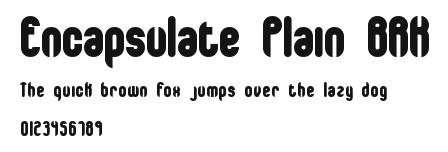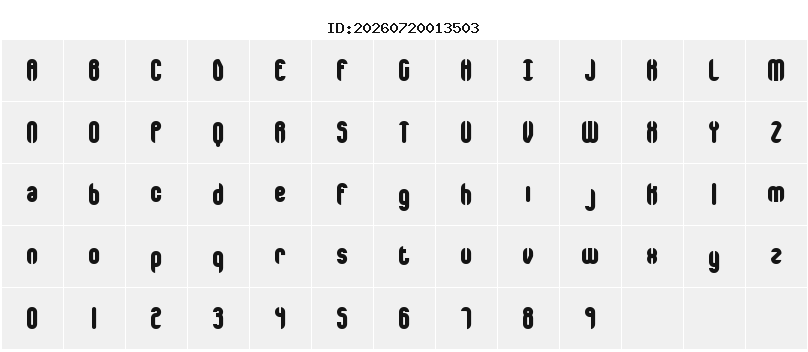
Encapsulate Plain BRK Preview
• Font Name: Encapsulate Plain BRK
• Full Font Name: Encapsulate Plain BRK
About Encapsulate Plain BRK.ttf
Encapsulate Plain BRK.ttf is a modern, elegant sans-serif font designed for ultimate readability and visual harmony. Perfect for branding, headlines, web design, and print materials.